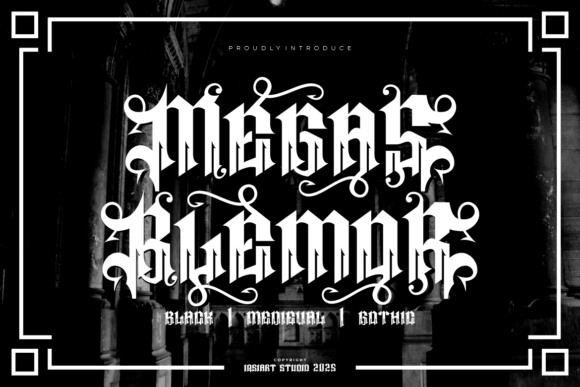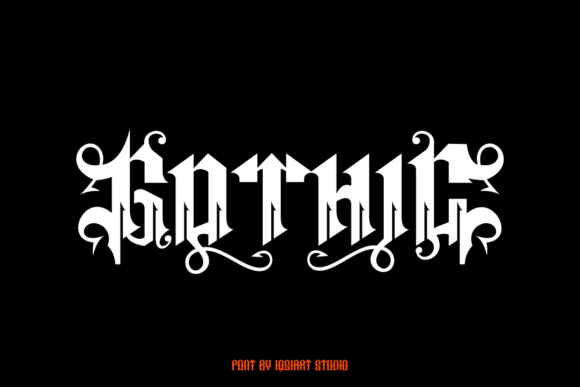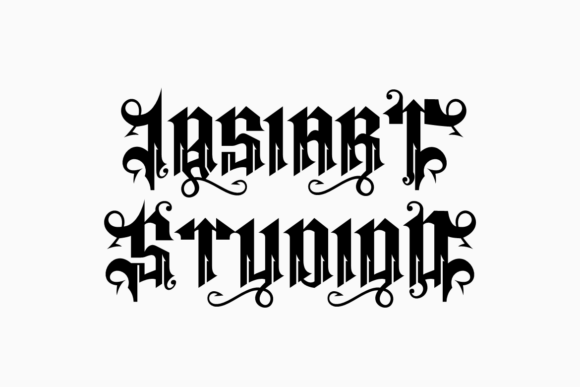
Introduction to Megas Blemor Font
Megas Blemok is a striking blackletter font with bold medieval flair and gothic undertones.
Its intricate strokes and ornamental details make it perfect for tattoo art, vintage logos, metal band branding, and themed posters This typeface brings drama and depth to any design while staying true to its historical roots.
Key Features of Megas Blemor Font
Why Choose Megas Blemor Font?
Megas Blemor Font offers exceptional quality and versatility, making it a valuable addition to your design toolkit. Whether you’re creating for personal projects or commercial use, Megas Blemor Font delivers professional results.